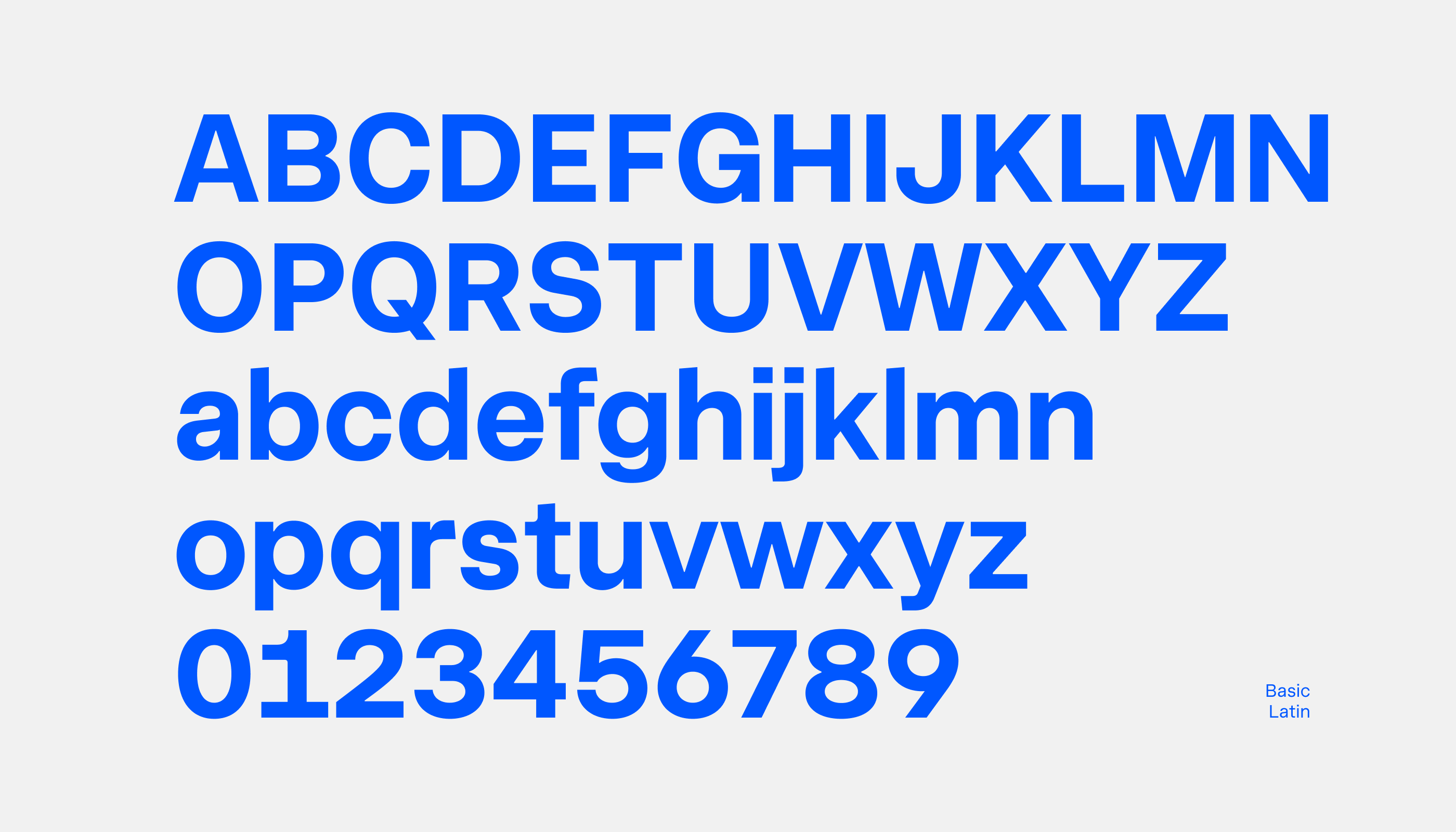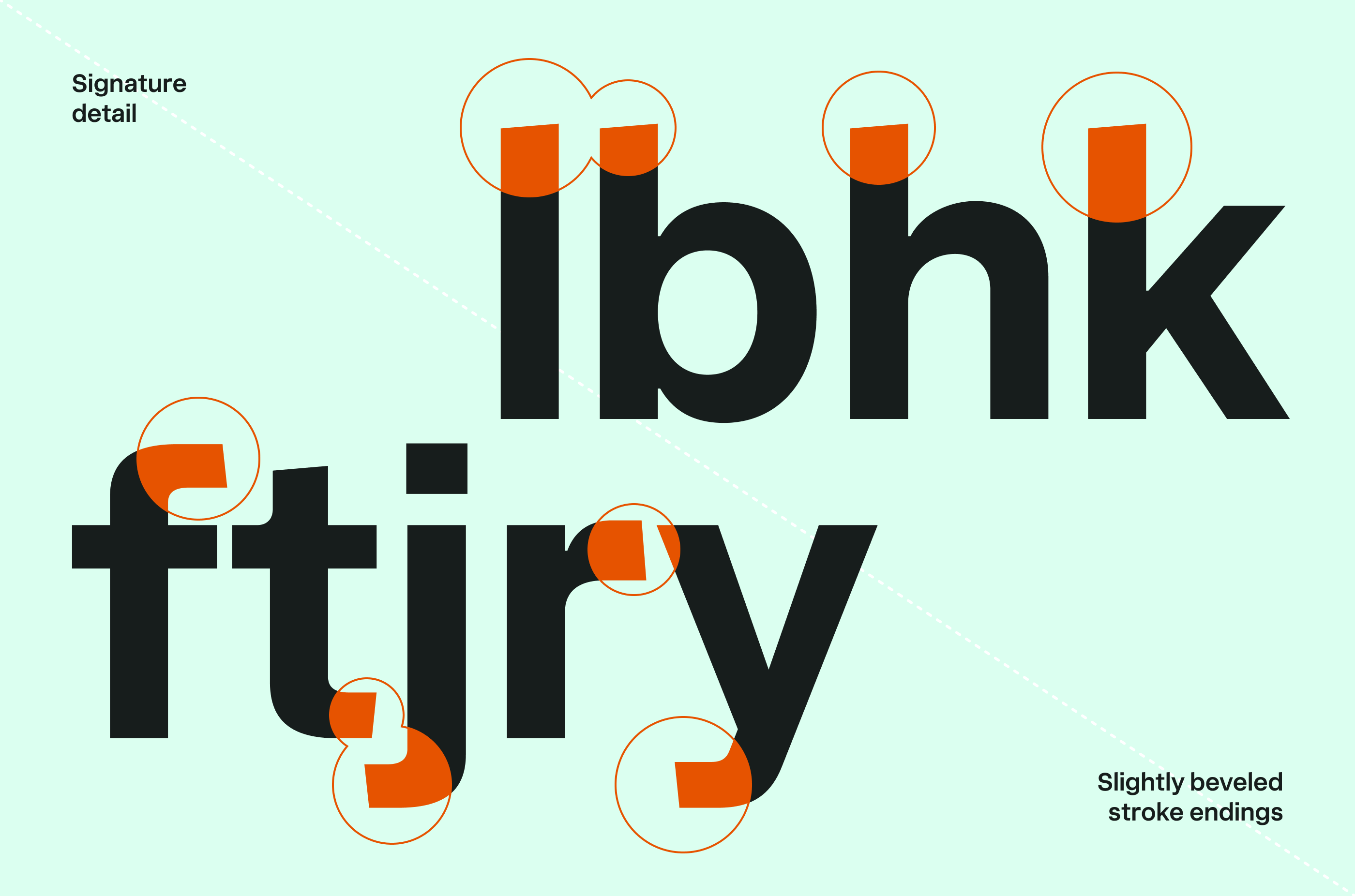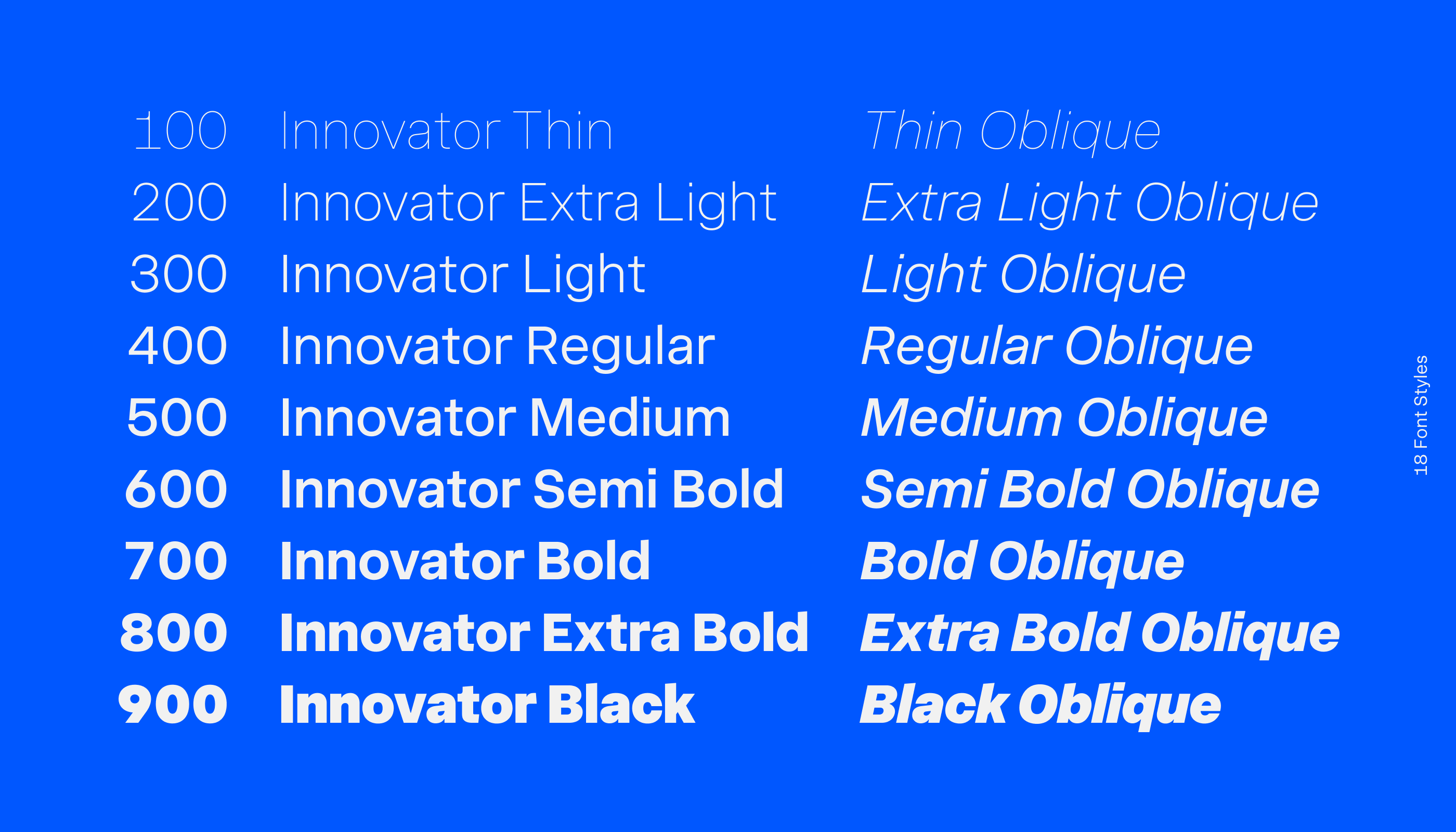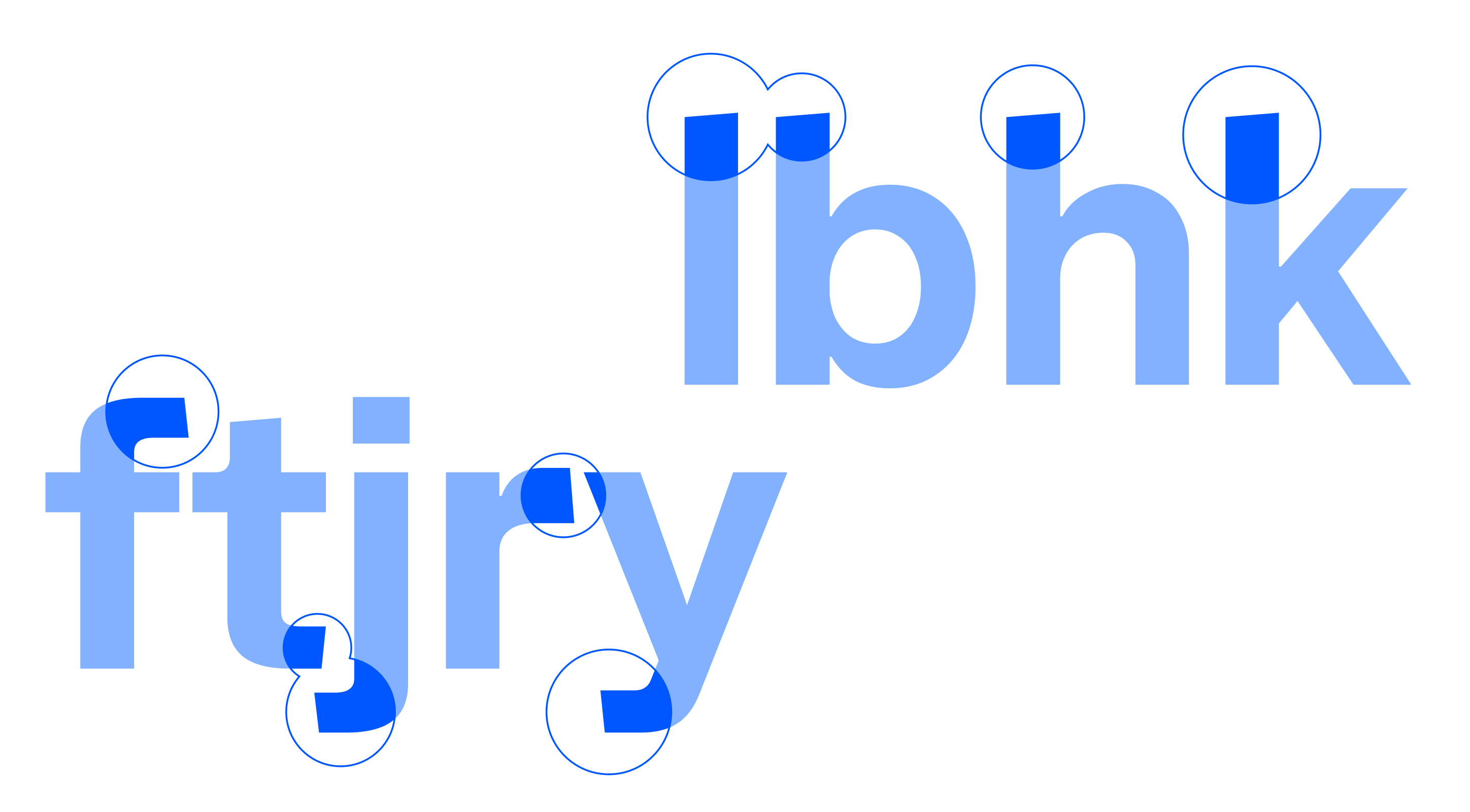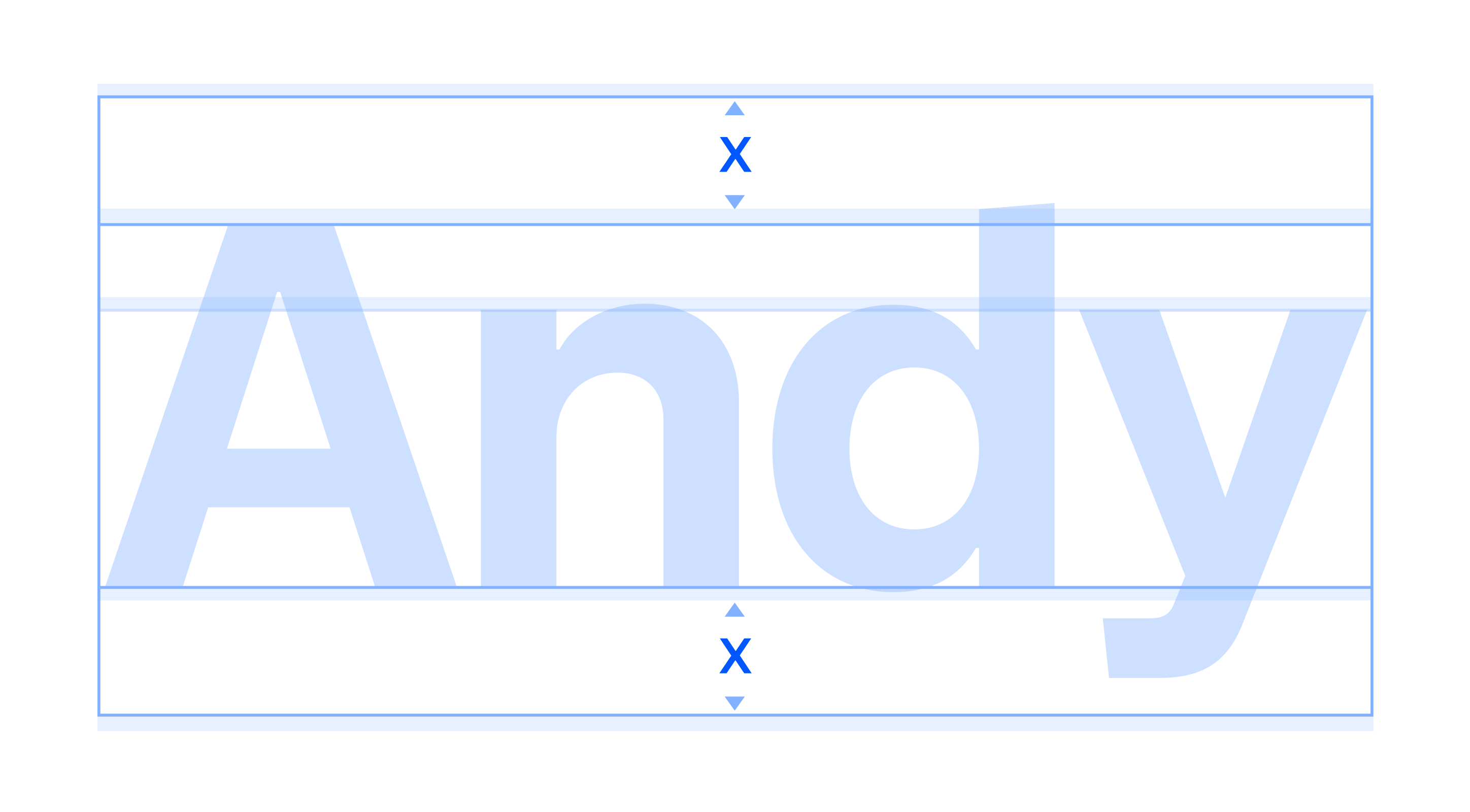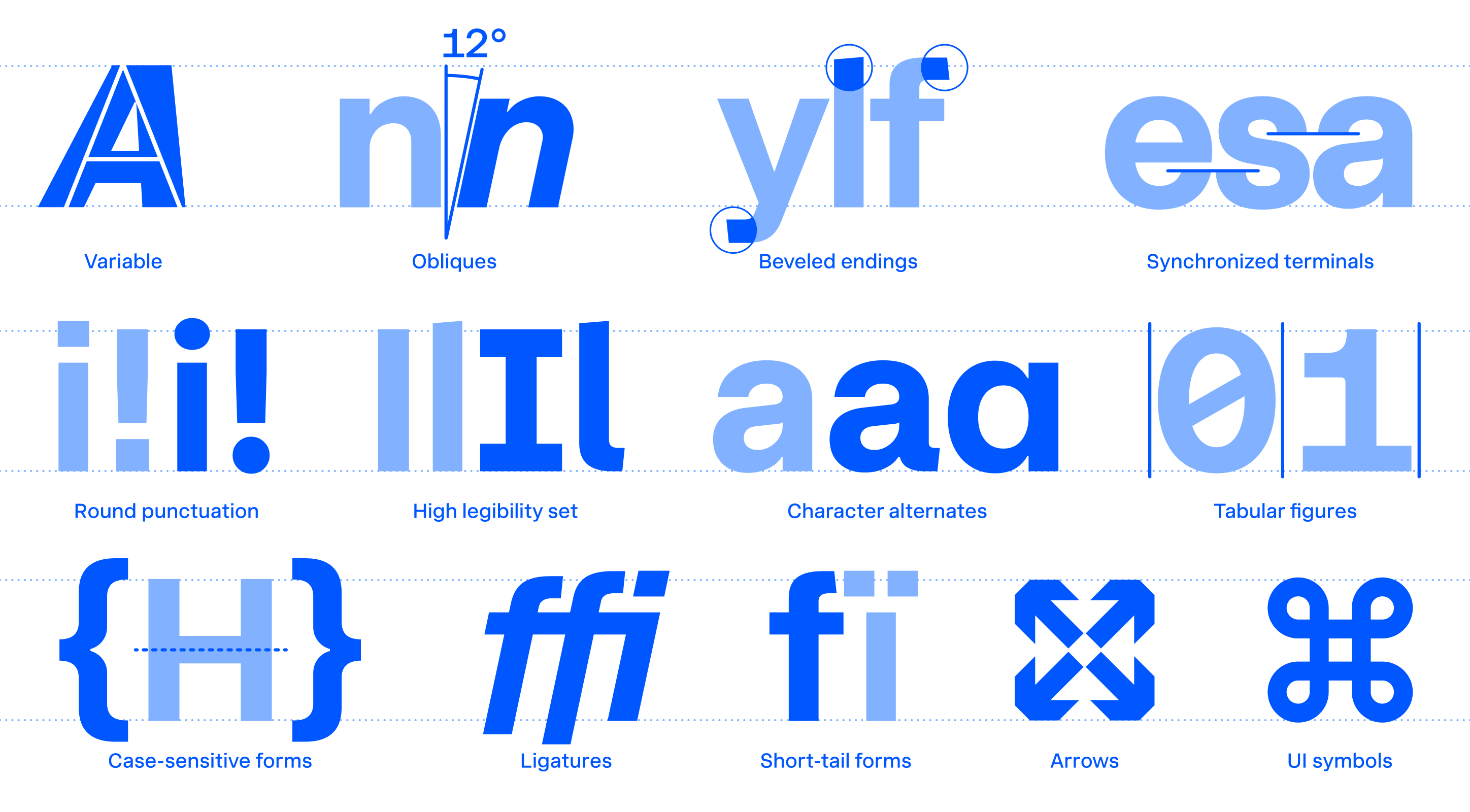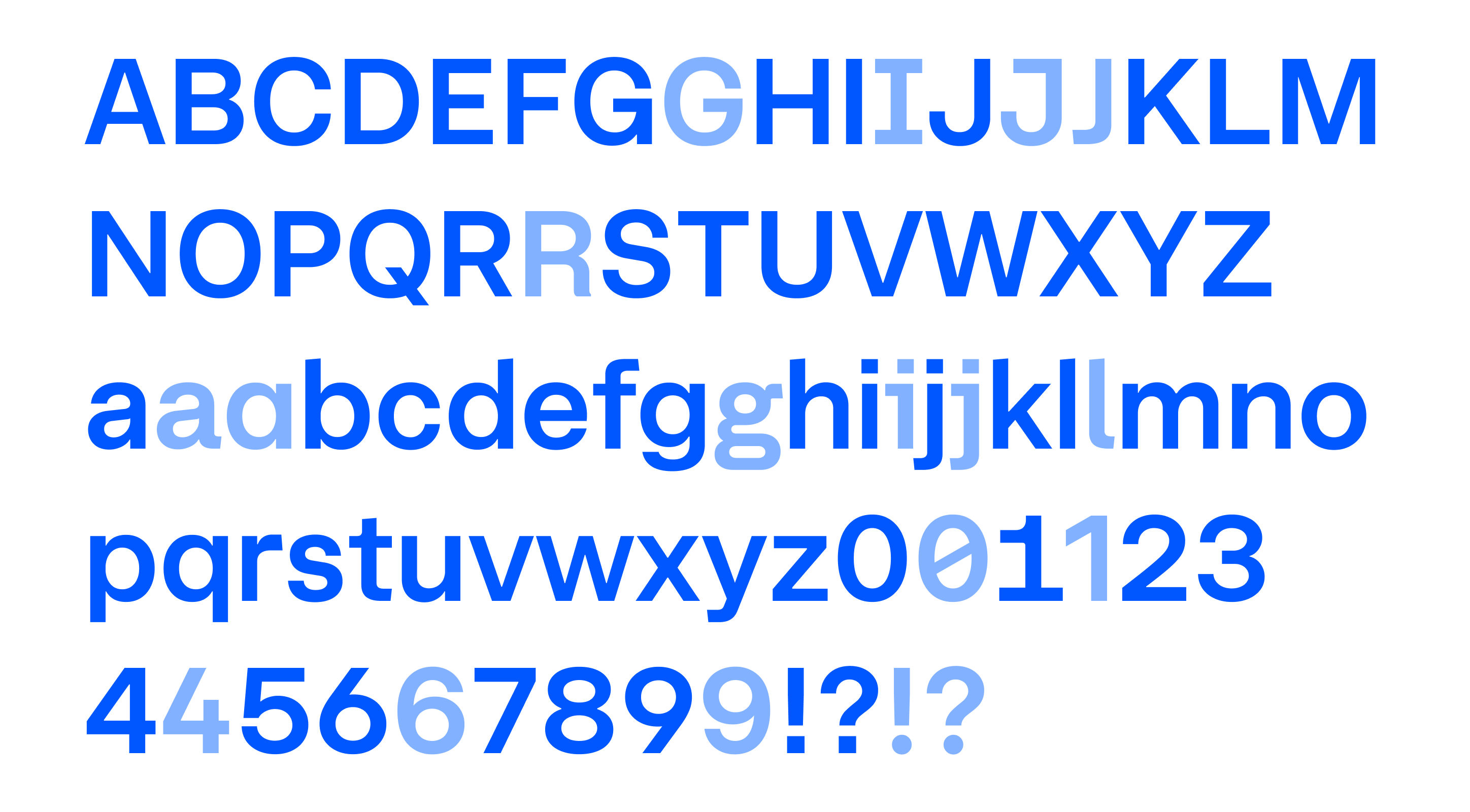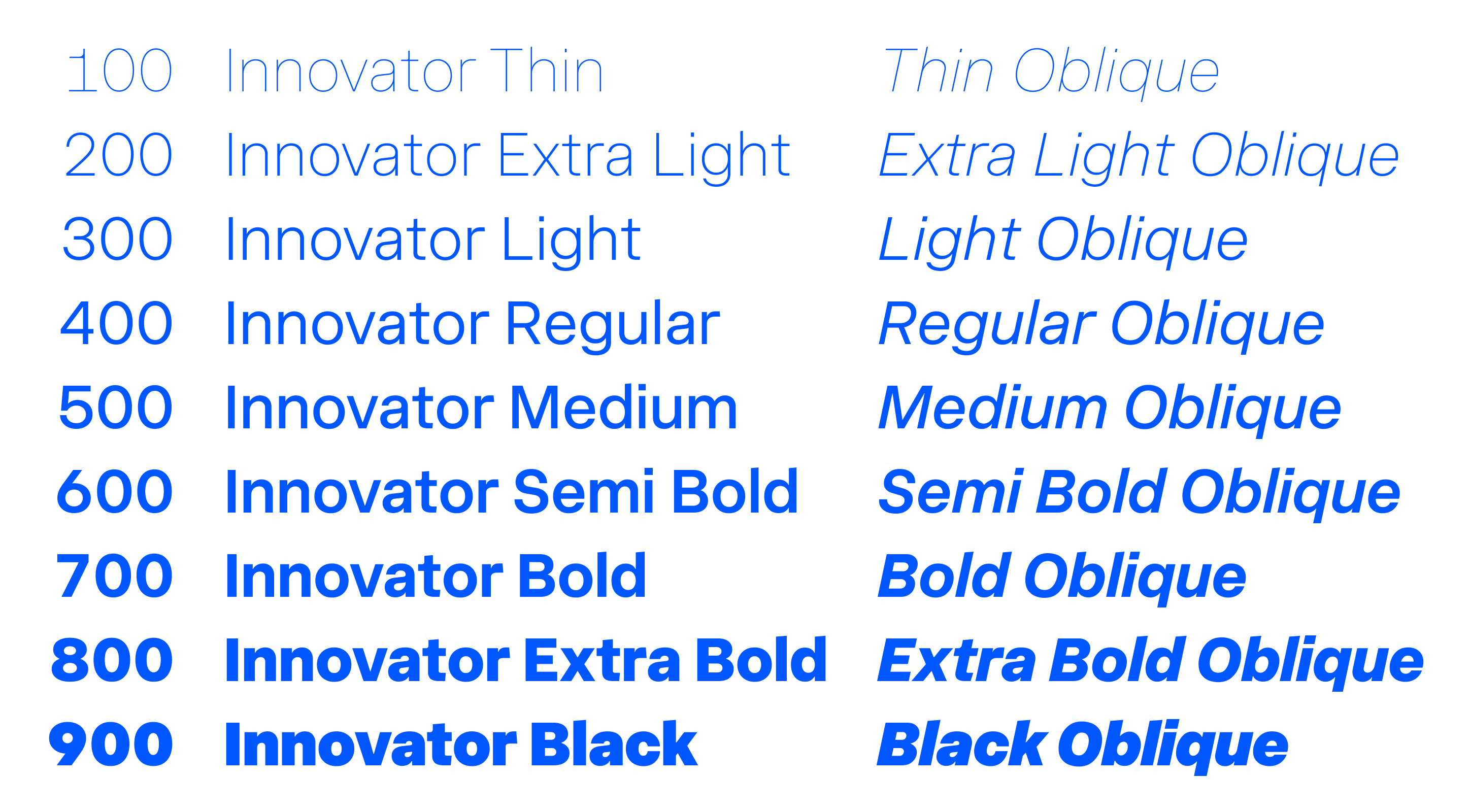
Innovator Grotesk
Innovator Grotesk VF
About Innovator Grotesk
Innovator Grotesk is a neo-grotesque variable typeface built for interface work. It comes in 18 styles—nine weights from Thin (100) to Black (900), each with a 12° oblique—and ships as a single variable font spanning the weight and italic axes. The character set covers over 250 Latin-script languages.
Innovator Grotesk has cap-centered vertical metrics: text labels sit optically centered on buttons and align precisely with icon glyphs at standard interface sizes, without manual CSS adjustments. The x-height is 75% of the cap height—tall enough for the word to read as almost one solid brick, so centering the capital centers the whole word with it. The technical side of implementation—font-variation-settings, @font-face setup, rendering flags—is covered in the Innovator Grotesk user’s manual.
Version 1.1 expanded the OpenType feature set substantially: two stylistic sets (round punctuation, regular numerals) and 15 character alternates including a high-legibility set, humanistic g and a variants, and individual controls for I, J, l, and key numerals. The v1.1 update article documents every alternate with usage guidance.
Innovator Grotesk occupies a deliberate position on the personality spectrum. Think of typeface character as a scale of twenty: at zero, a face so neutral it simply carries content without comment; at twenty, a face as prominent and industrial as a construction drawing. Innovator sits around two—a subtle technological flavor that signals precision and modernity without dominating the interface.